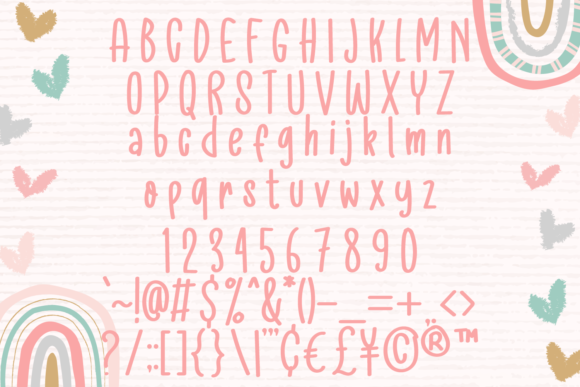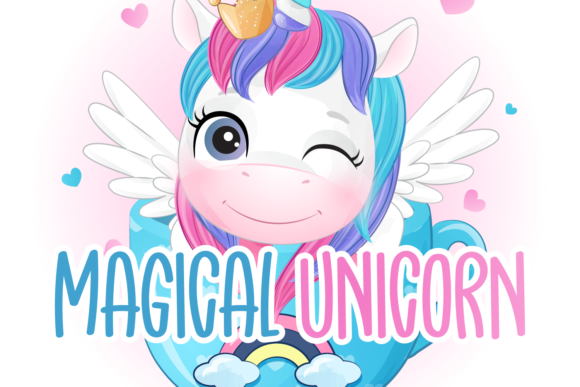
Unicorn Rainbow Font
db-ku.com - Script & Handwritten -- Unicorn Rainbow is a fun and cute styled handwritten font. This font is perfect for children themed designs, especially when combined with bright colors.